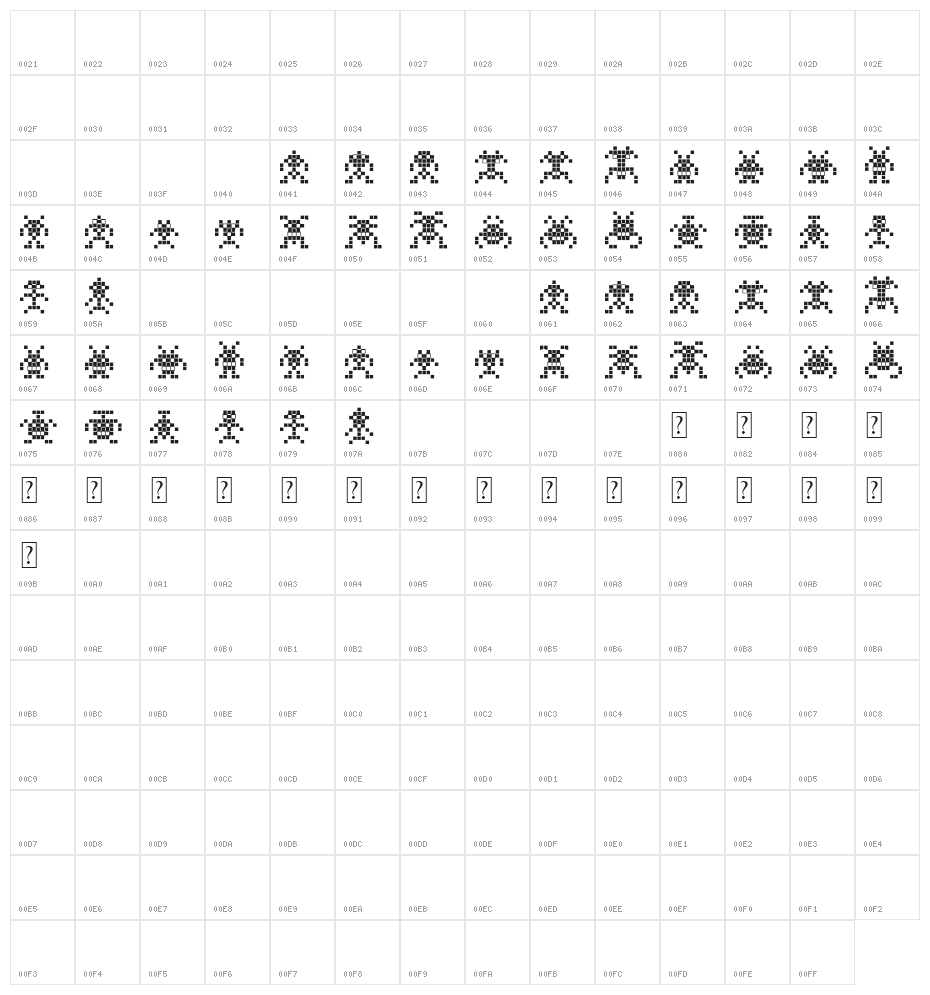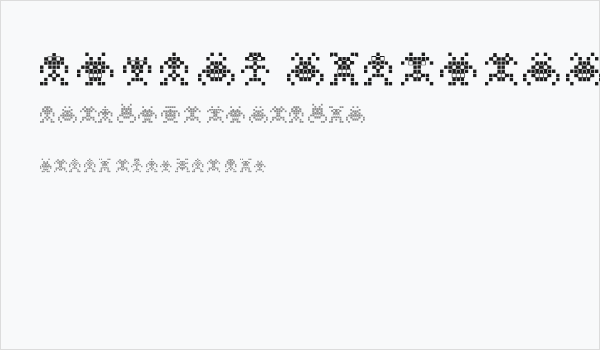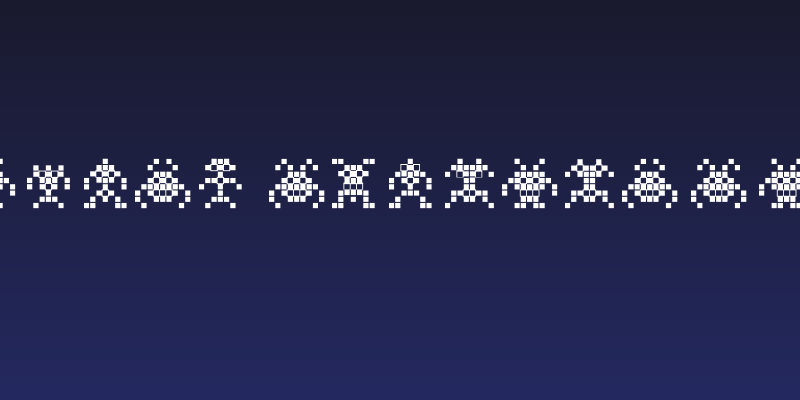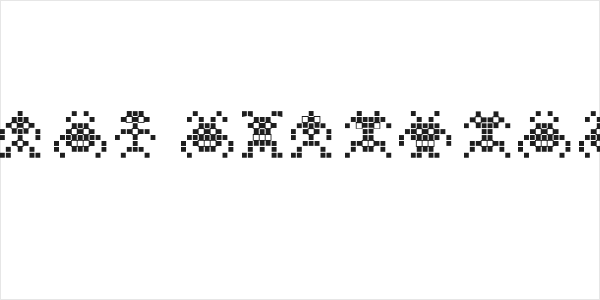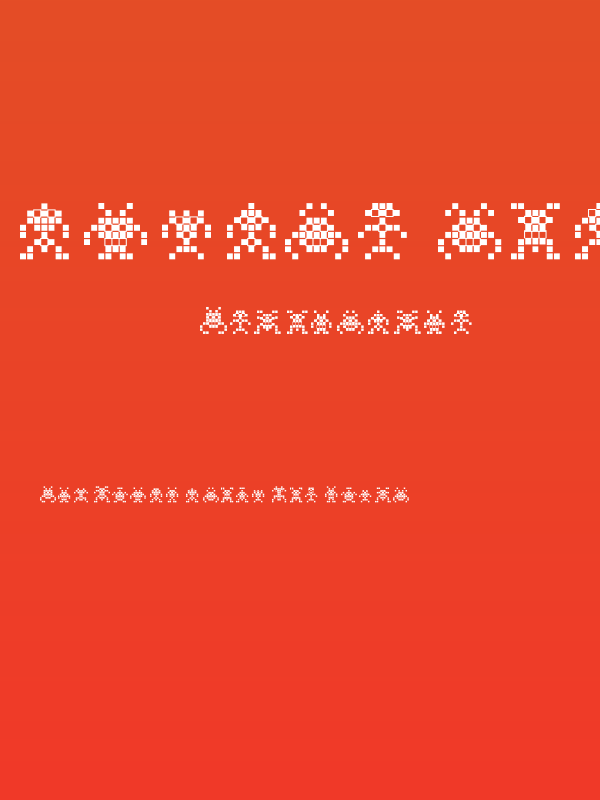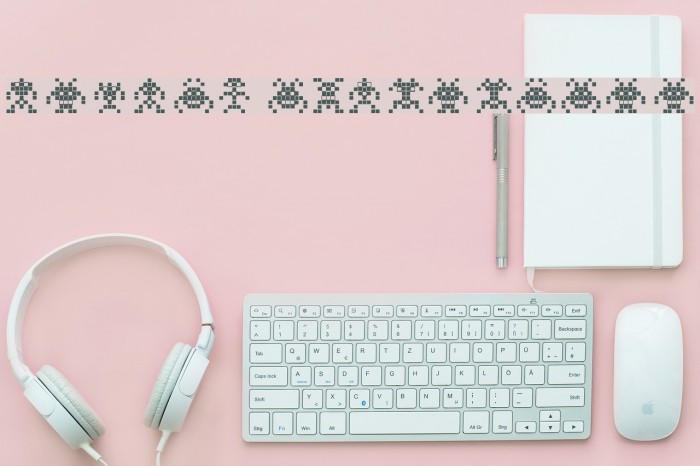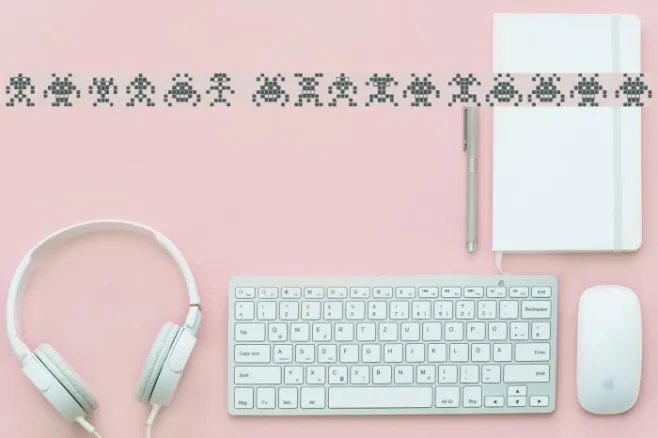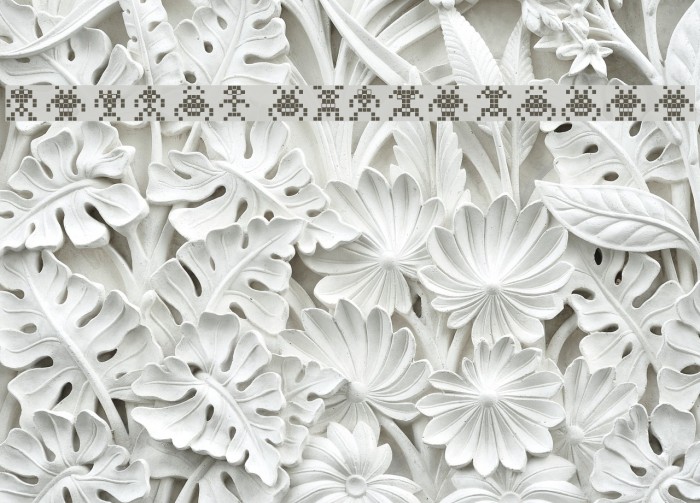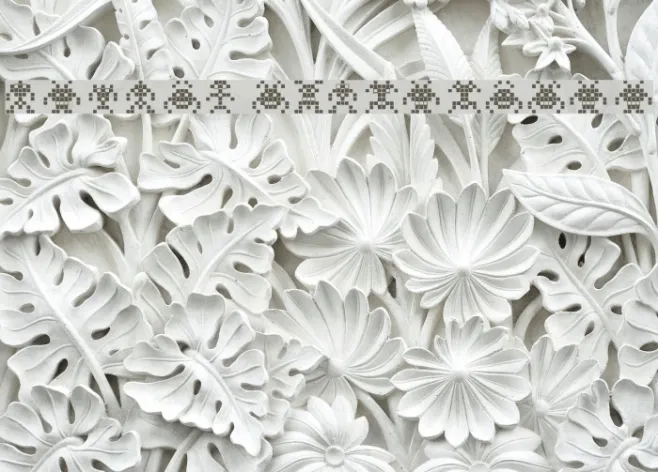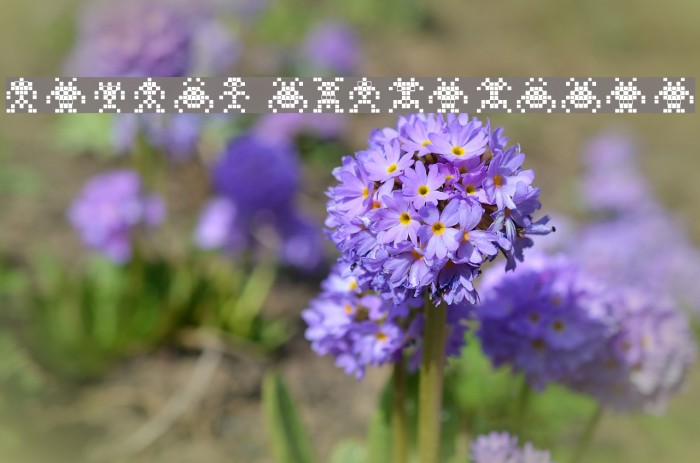
Binary SoldiersII Font
Binary SoldiersII Description
This font is a playful and creative representation of characters using pixelated, soldier-like figures. Each character is uniquely designed to resemble a small, blocky soldier, giving a retro, video game aesthetic. The characters are uniform in size and spacing, creating a cohesive and consistent look across the set. The pixelated style is reminiscent of early digital graphics, making it ideal for projects that aim to evoke nostalgia or a vintage gaming feel. The font's distinct and decorative nature makes it stand out, providing a unique visual appeal.
| Use Case | Logos, Posters, Digital Art |
| Proposed Projects | Ideal for video game designs, retro-themed posters, and creative digital art projects. |